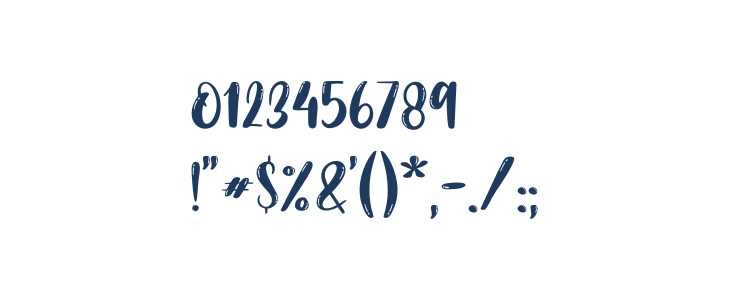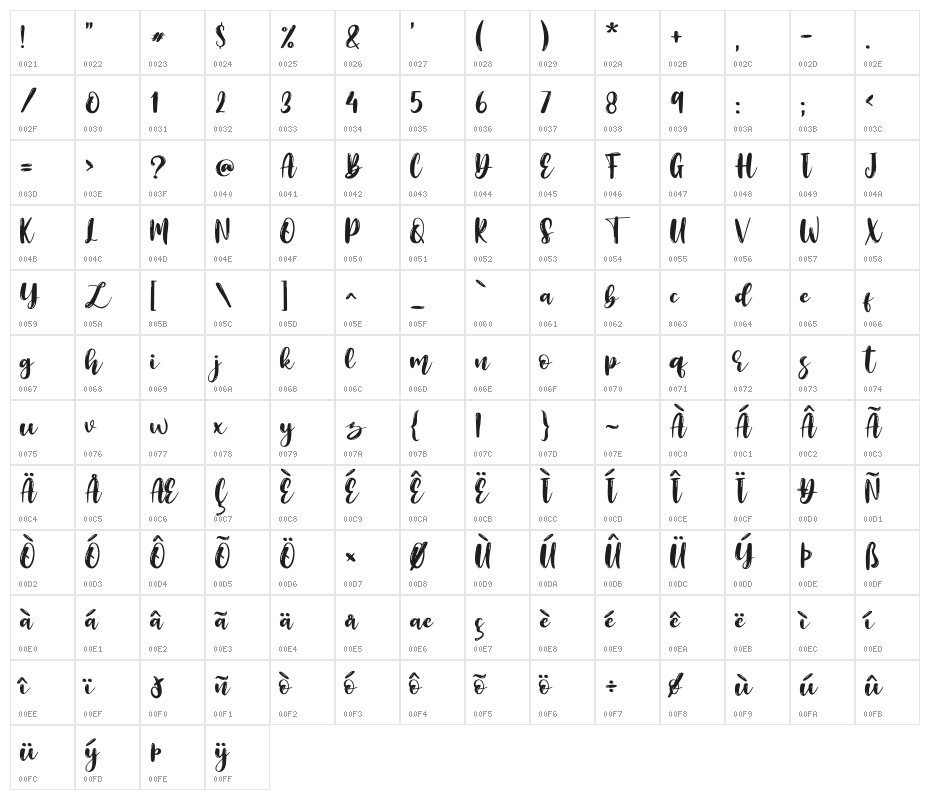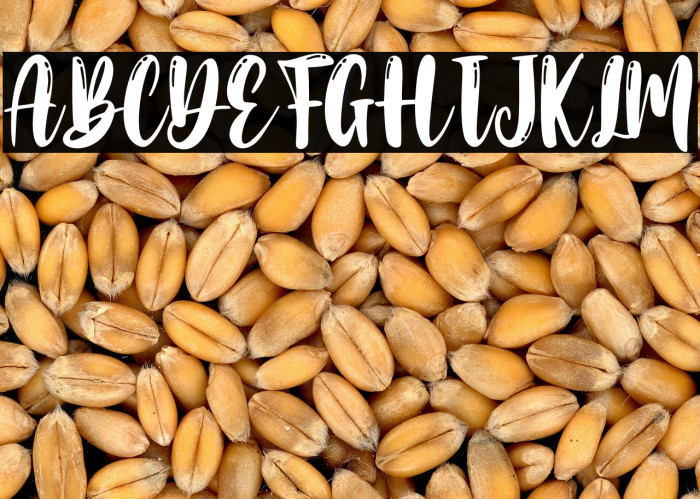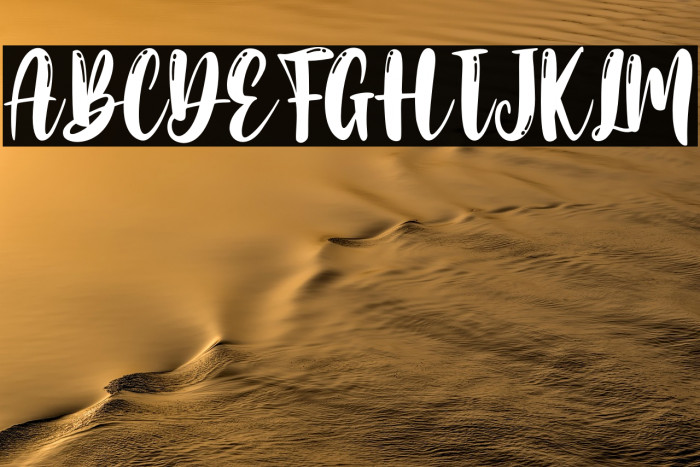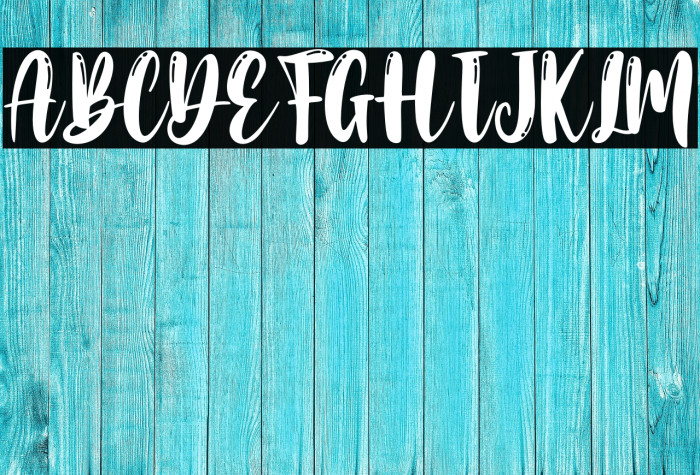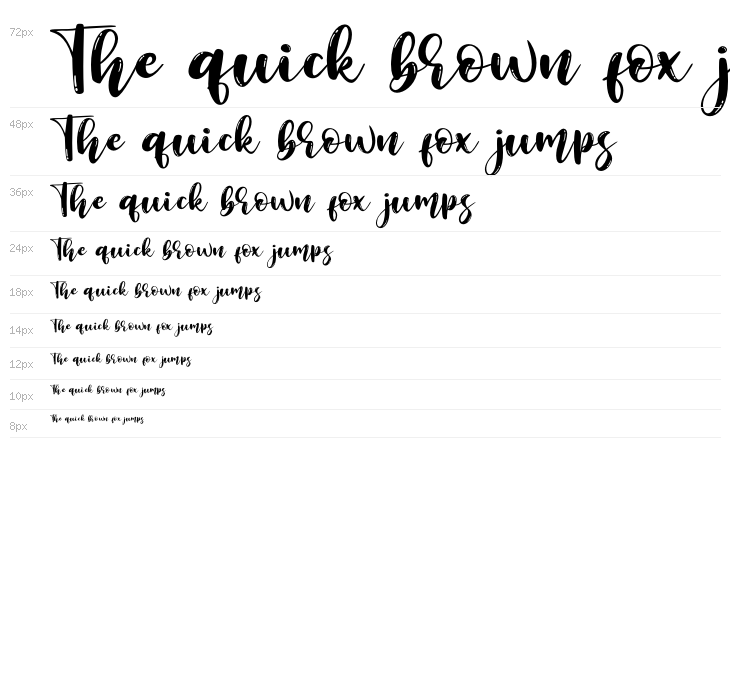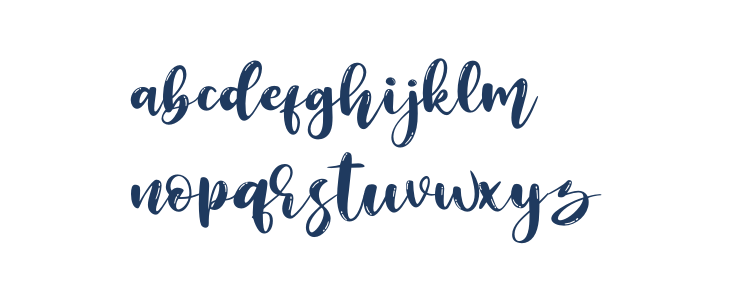
Birama Font
Birama Description
This font features a bold and expressive script style with a hand-drawn appearance. The letters are characterized by their fluid, sweeping strokes and varying thickness, giving it a dynamic and energetic feel. The uppercase letters are particularly striking, with dramatic flourishes and loops, while the lowercase letters maintain a consistent flow with elegant curves. The numbers and special characters are equally bold, maintaining the overall aesthetic. This font is ideal for projects that require a personal touch or a sense of creativity and flair.
| Proposed Projects | Ideal for branding, invitations, greeting cards, and creative posters. |